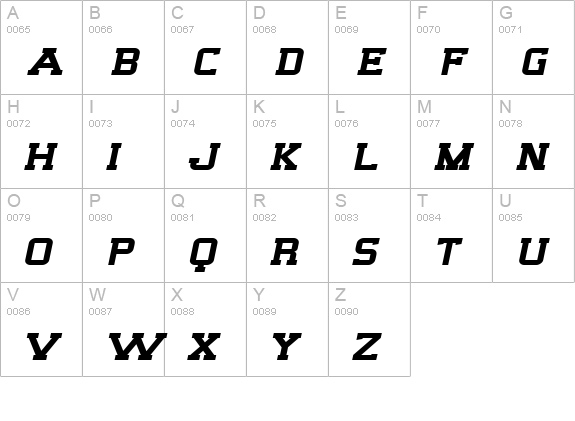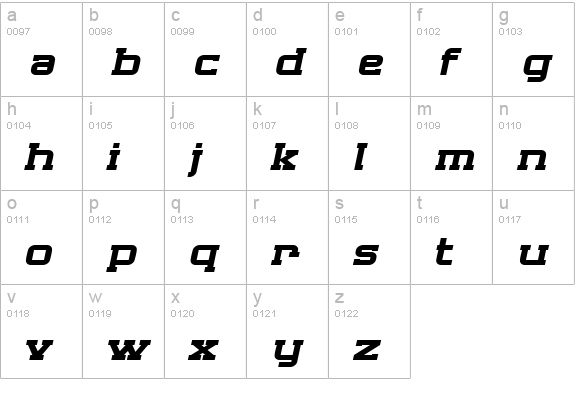
SF Big Whiskey Extended Font Details
SF Big Whiskey Extended is a distinctive, extended-width variant in the SF typeface family \xE2\x80\x94 well suited to design and typography projects.
SF Big Whiskey Extended is a bold and eye-catching font that exudes a sense of strength and power. Its tall and wide letterforms make a bold statement, perfect for attention-grabbing headlines and titles. The extended version of this font adds an extra level of impact, making it ideal for designs that require a larger-than-life presence. With its clean lines and strong curves, SF Big Whiskey Extended is both modern and timeless. It combines the elegance of a classic serif font with a contemporary twist, resulting in a unique and versatile typeface. Whether used in print or digital media, this font will make your designs stand out from the crowd. One of the best features of SF Big Whiskey Extended is that it is free to download at FontsMarket.com. This means that you can use this powerful font without any cost or restrictions. It is freely available to anyone who wants to add a touch of boldness and sophistication to their design projects. So, if you're looking for a font that commands attention and makes a lasting impression, look no further than SF Big Whiskey Extended. Download it for free at FontsMarket.com and unleash its power in your designs.